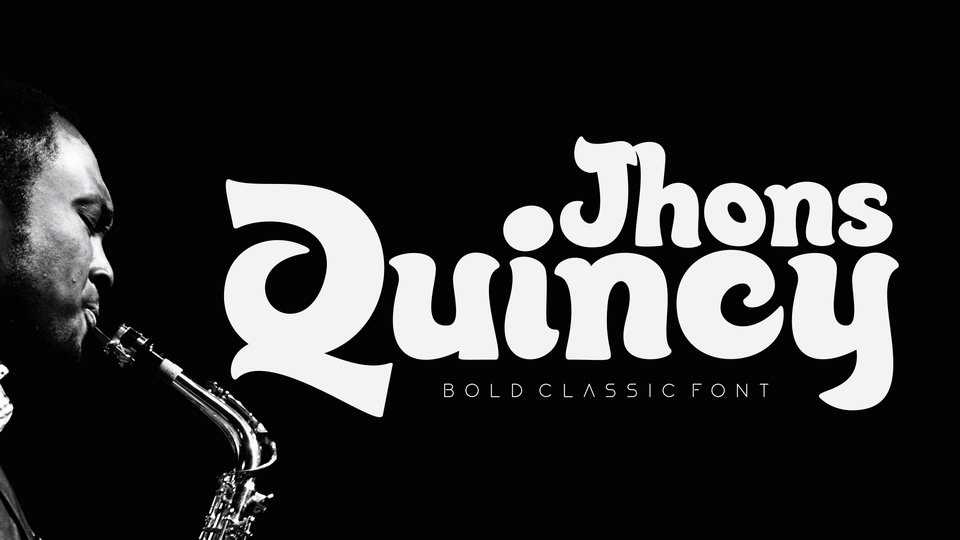
Download Quincy Jhons font, a vintage script with the organic curves and rounded corner gives the sense of nature and humanic touch in each letter. Quincy Jhons comes with bold attitude but in a sexy way, just like a jazz groves that grow inside your soul.